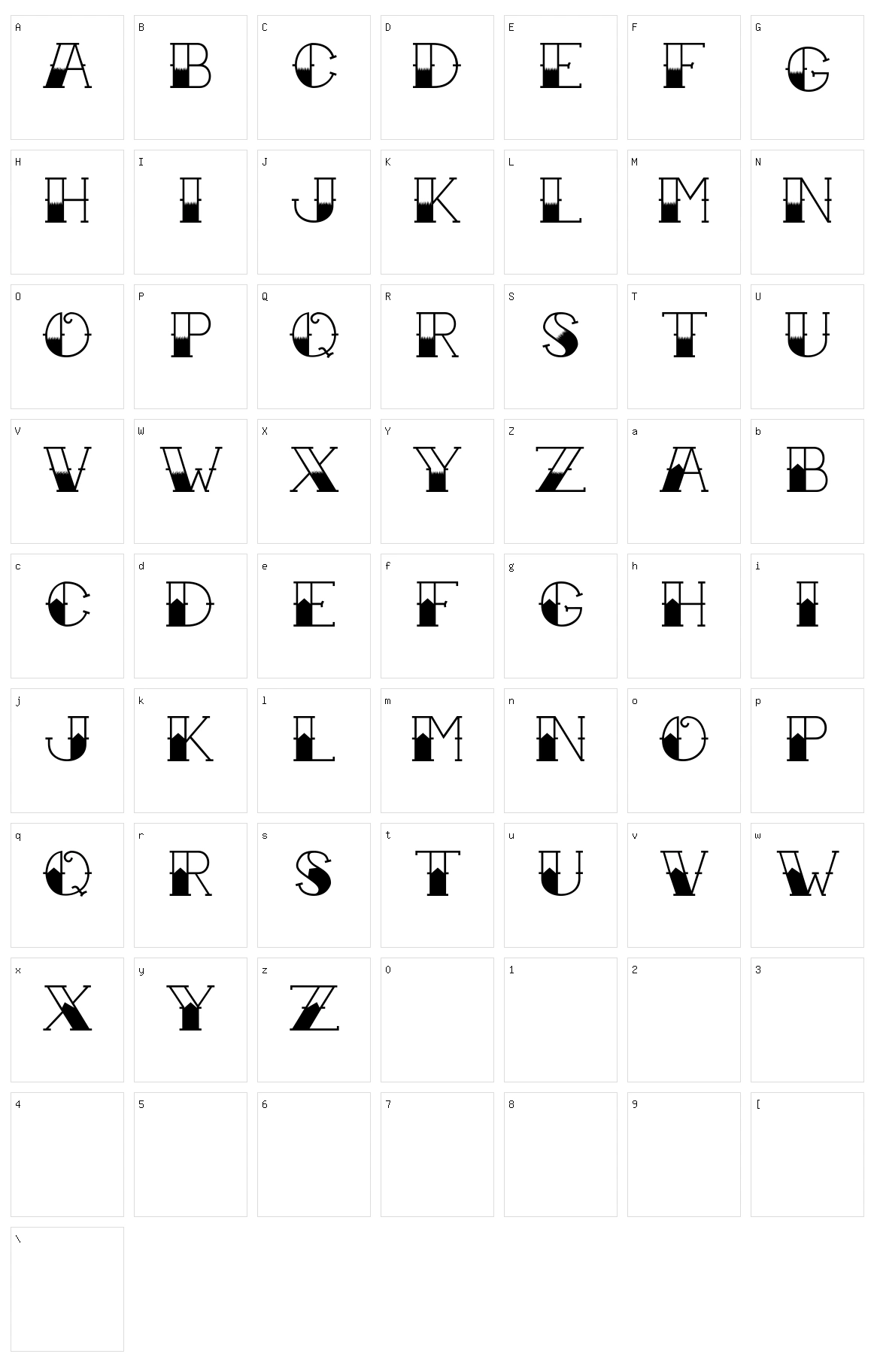
TATTOO INK is a *FREE* font inspired by the multitude of tattoo-lettering styles drilled
into people's skin everyday worldwide.
TATTOO INK contains letters only - no punctuation or numbers are provided. Uppercase
letters contain a scratchfull, while lowercase letters contain angled fill.